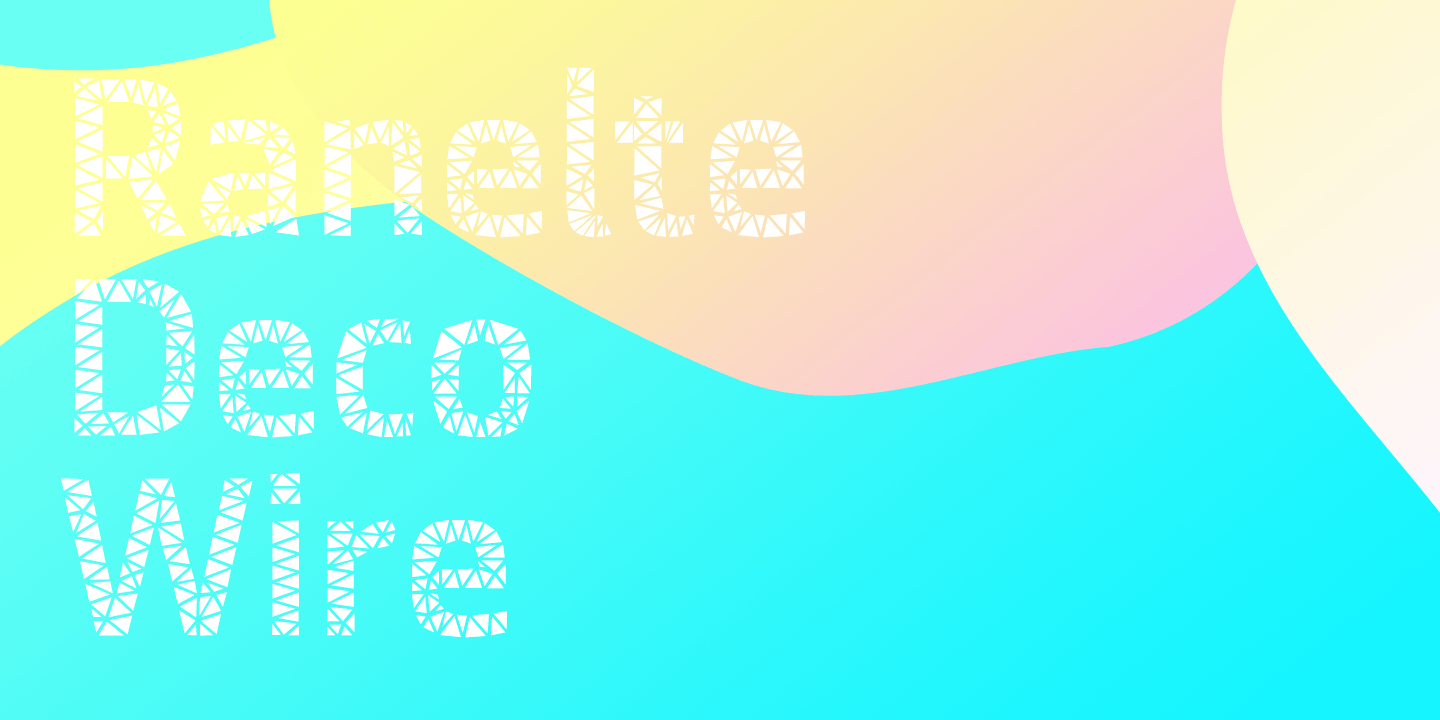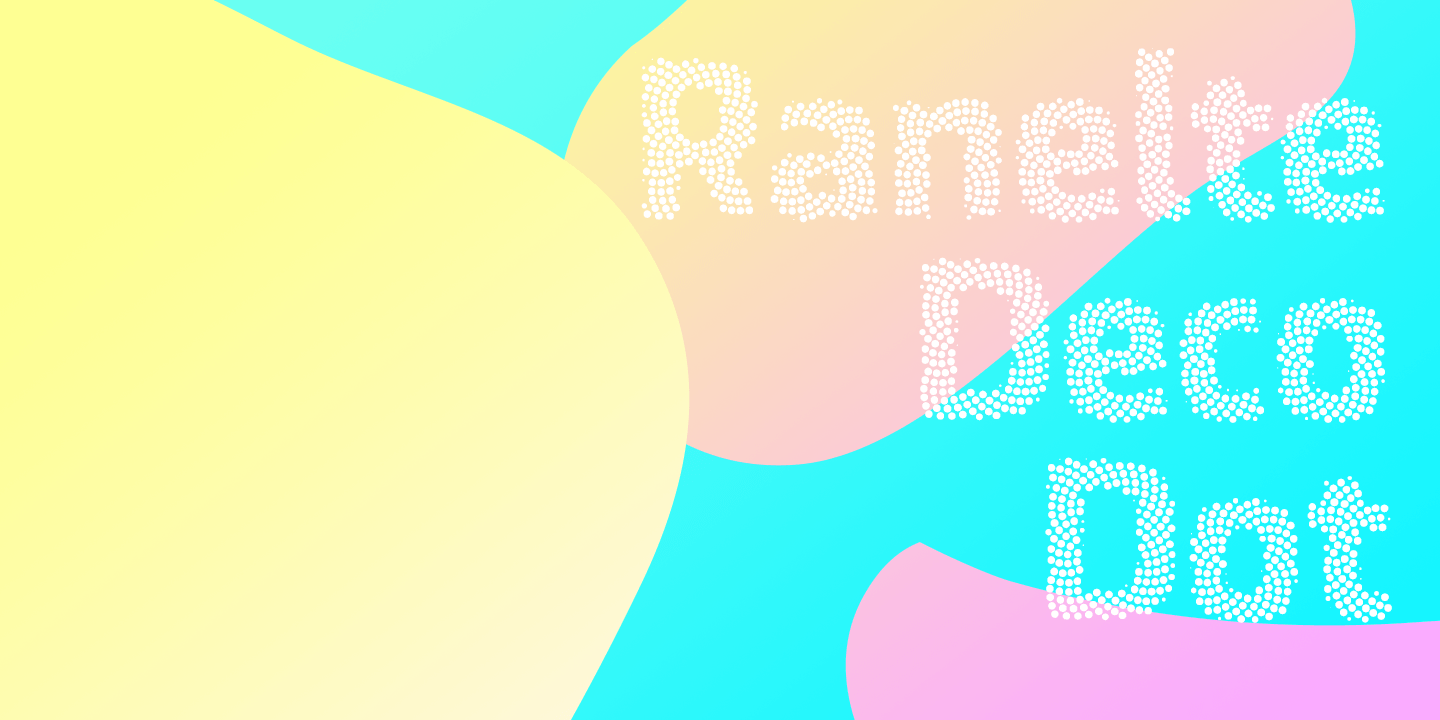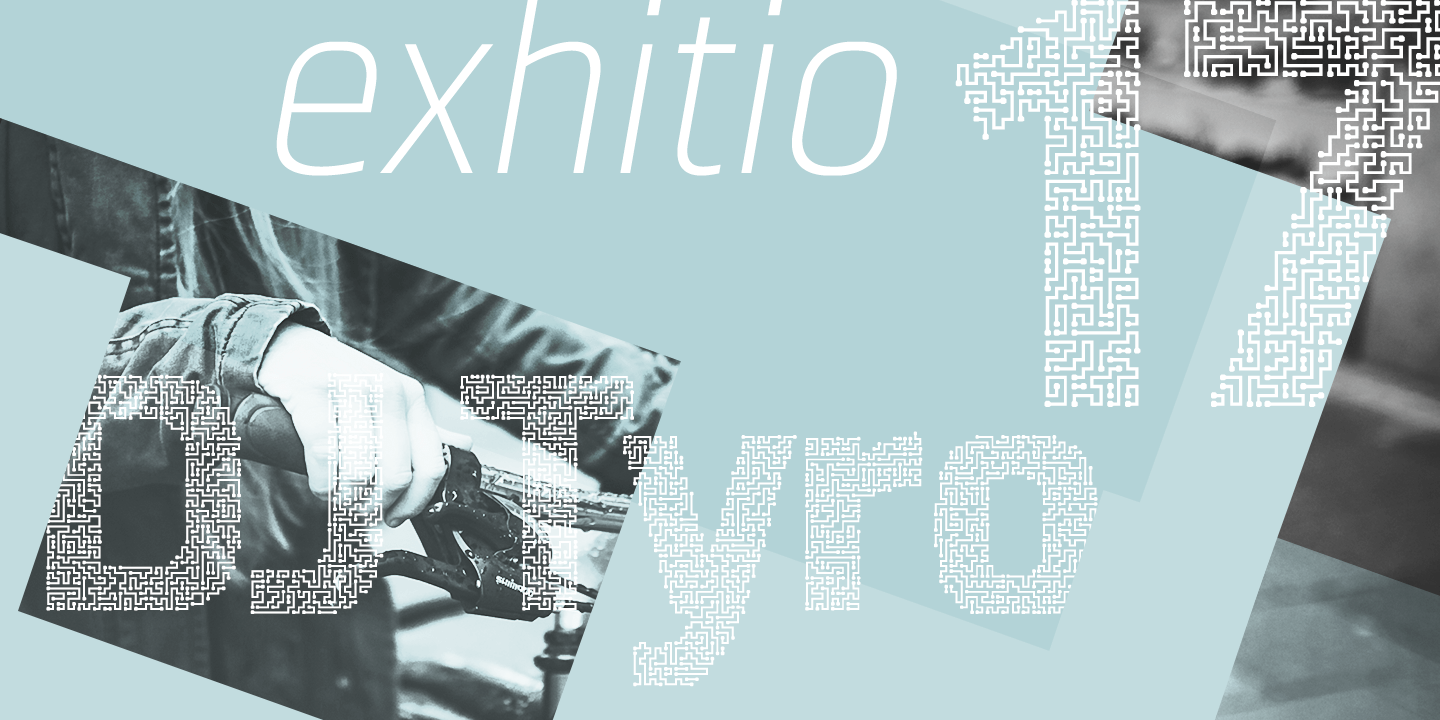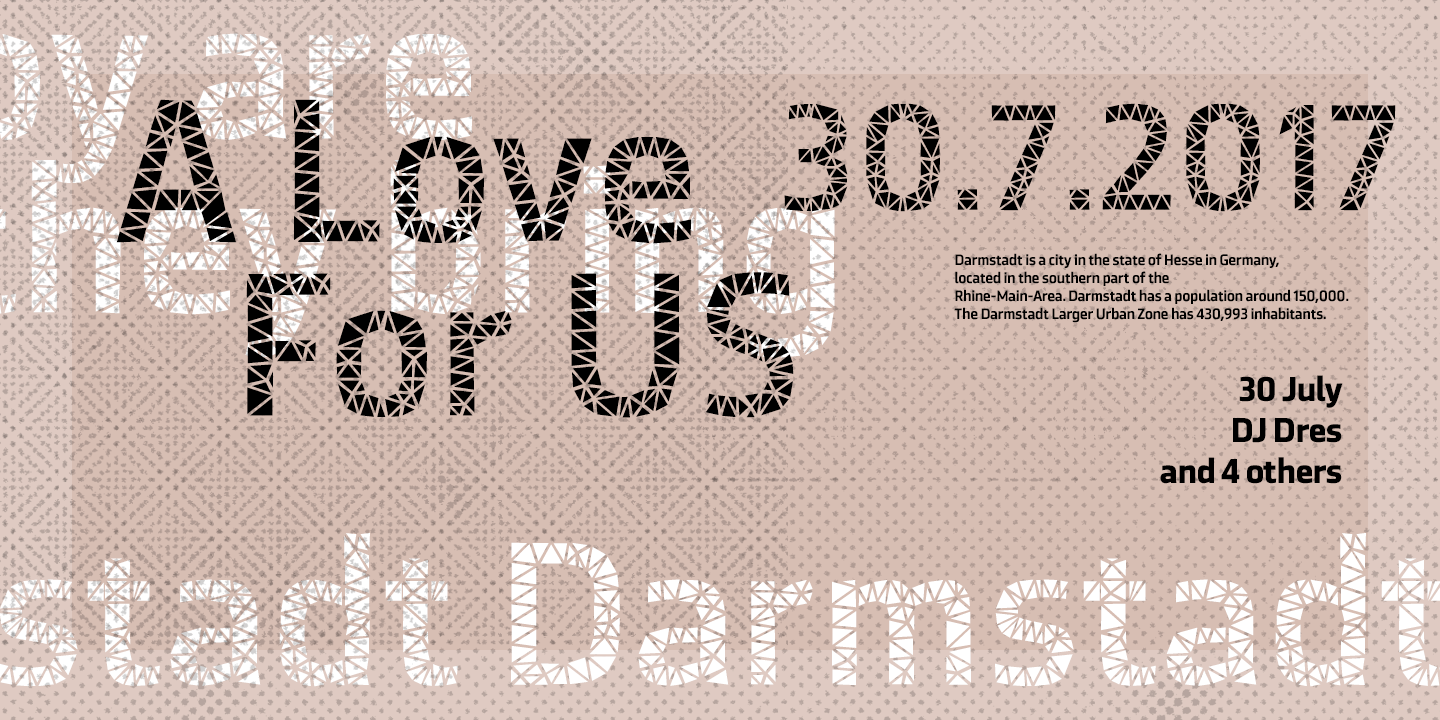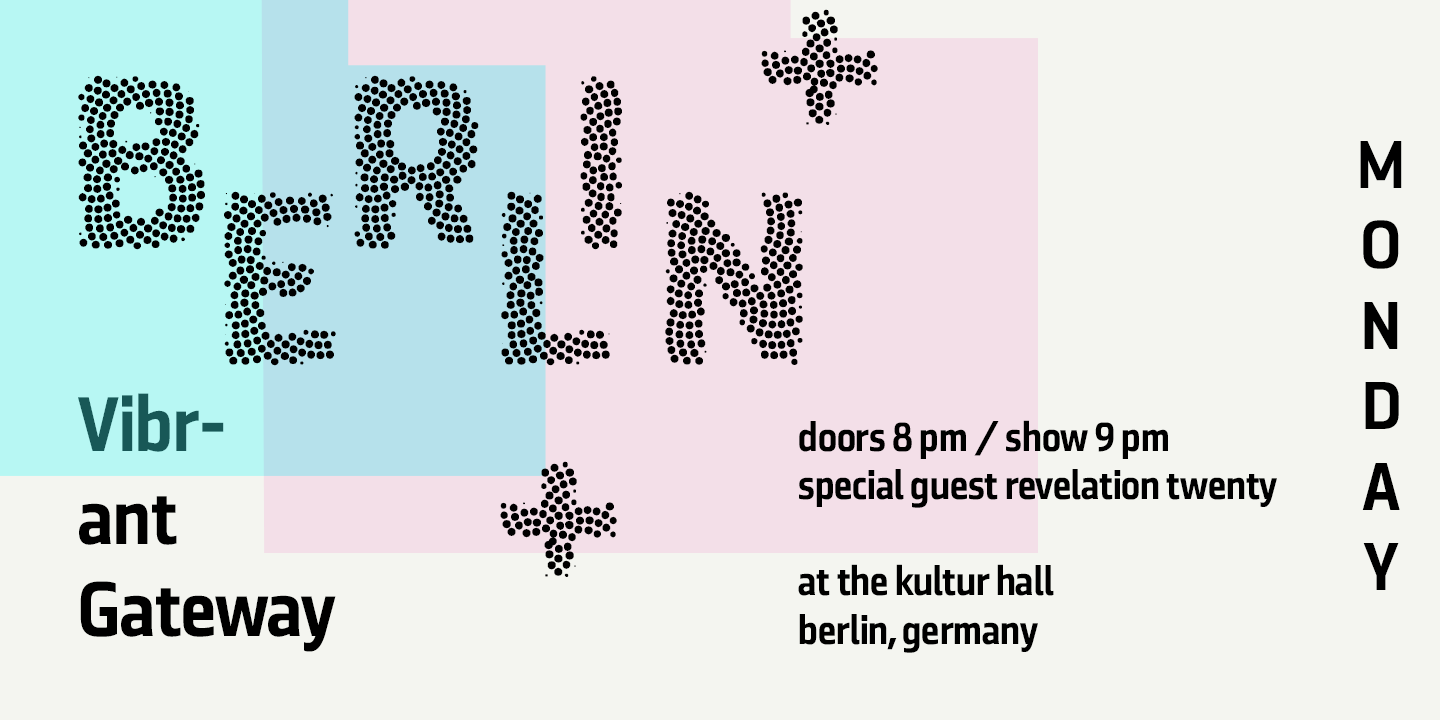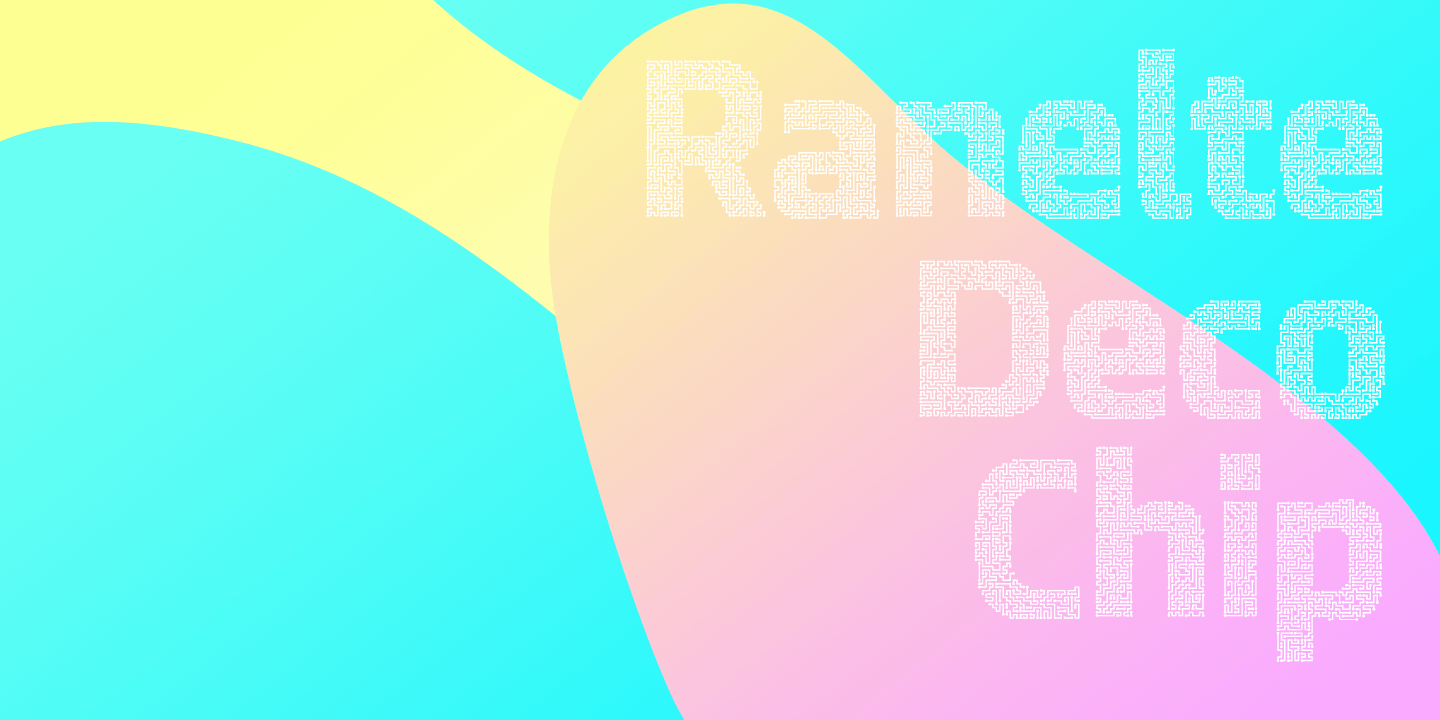
With the original Ranelte, Insigne Design pays tribute to the strong, simple forms of the long-lasting DIN series. Now, Ranelte Deco, a new variant on the classic-inspired font, makes a more specific statement with some unique styles that are clearly…